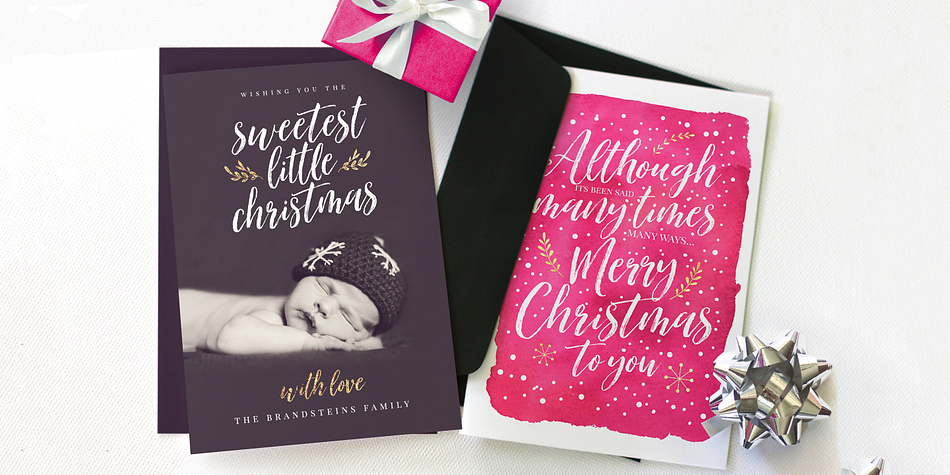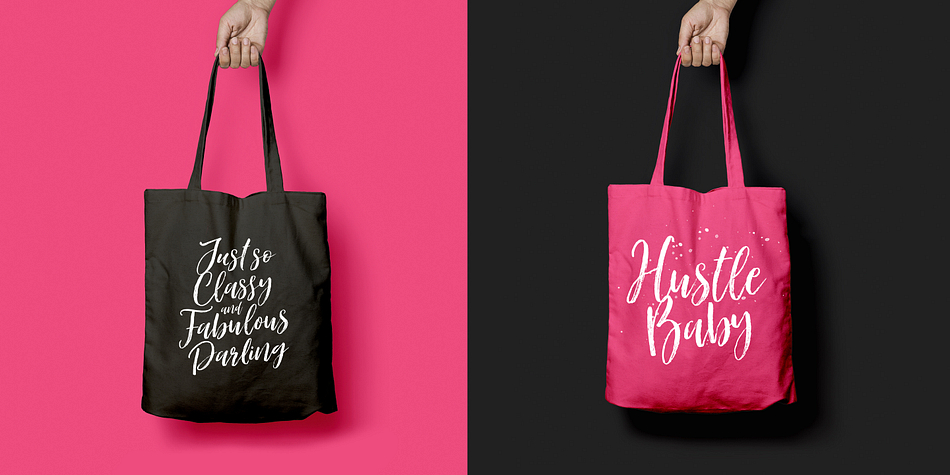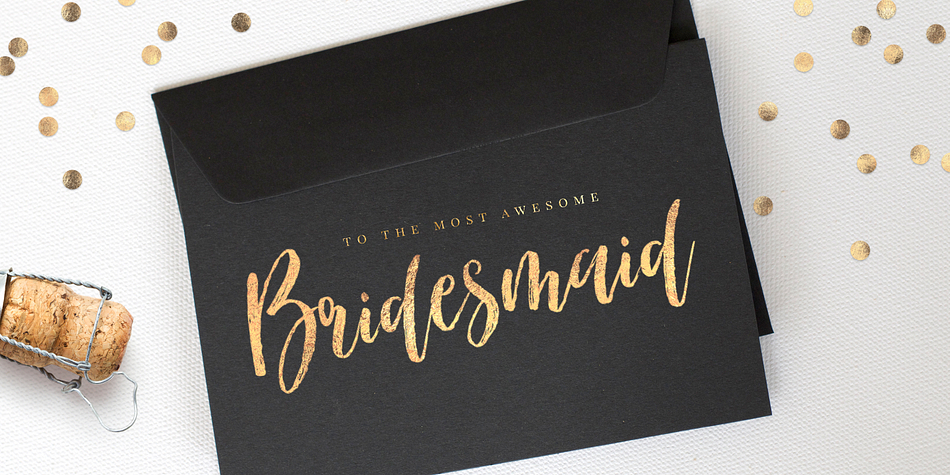
Bloomishly
Designed by Nicky Laatz, Bloomishly is a brush script and modern calligraphy font family. This typeface has four styles and was published by Nicky Laatz.
A voluptuous, bouncy brush script with a fabulously flirtatious nature :)
There are 4 variants of Bloomishly, to add even more flexibility to your designs : Regular, Broad, Italic, and Broad Italic.
Bloomishly includes Stylistic Alternates for the uppercase and lowercase letters, and a handy set of natural looking Ligatures to add to the natural nature of the typeface.